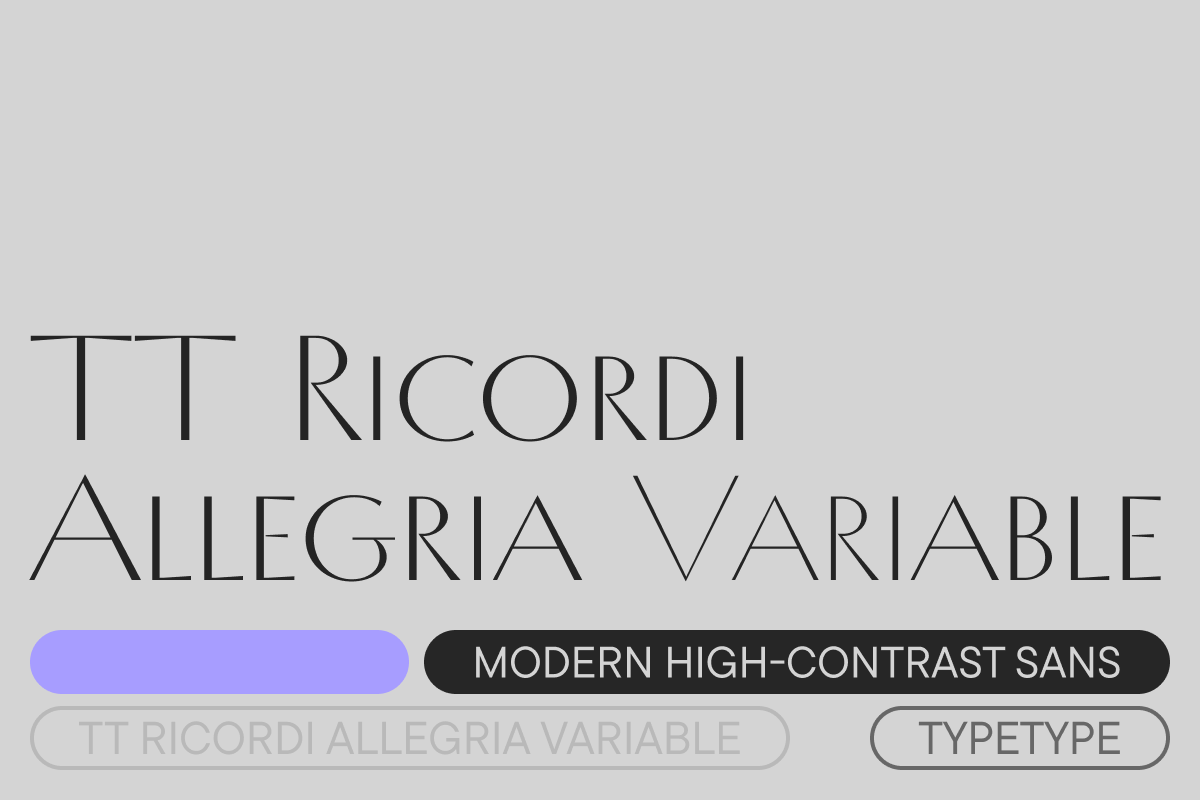
TT Ricordi Allegria Variable
TT Ricordi Allegria is a modern high-contrast sans. TT Ricordi Allegria stands out for its hyperbolically dynamic proportions, pronounced contrast, wedge-shaped stroke ends, and the absence of traditional serifs. The source of inspiration for TT Ricordi Allegria was the inscription remains found within the Basilica di Santa Croce, Florence. The typeface stands out for its hyperbolically dynamic proportions, pronounced contrast, wedge-shaped stroke ends, and the absence of traditional serifs.